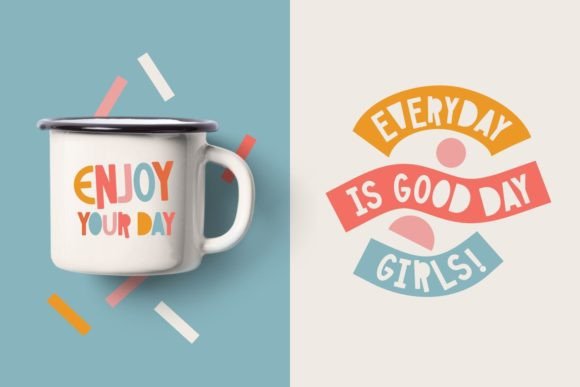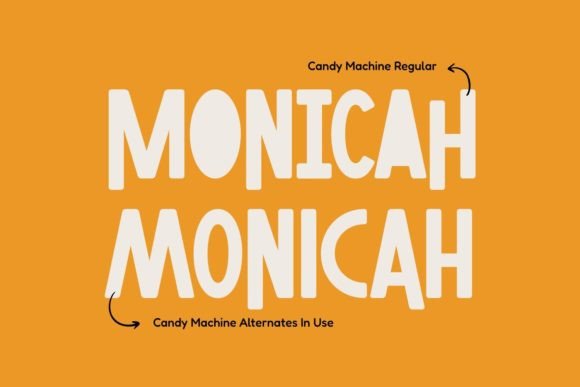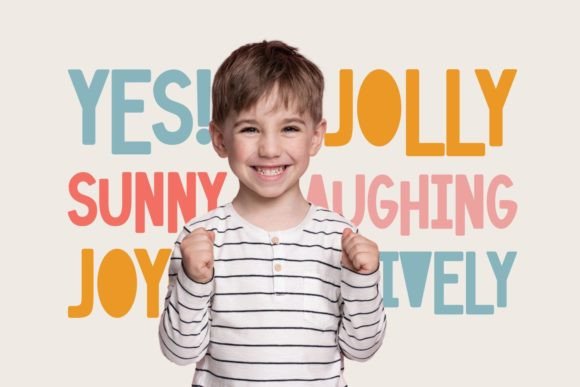
Candy Machine Font
Candy Machine is a playful font with visual elegance, smooth curves, and beautiful ligatures, making your work look true and attractive.A versatile font that works in both large and small sizes. This font is suitable for a wide variety of projects such as logos, invitations, branding, magazine, photography, card, product packaging, product mockup, mugs, quotes, posters, labels, signatures, editorials, websites, art deco, social media, and much more.A font that is perfect for all business sectors including personal projects, studios, corporate, creative agencies, industrial, company, etc.This font is PUA encoded, which means you can access all of the glyphs and swashes with ease!